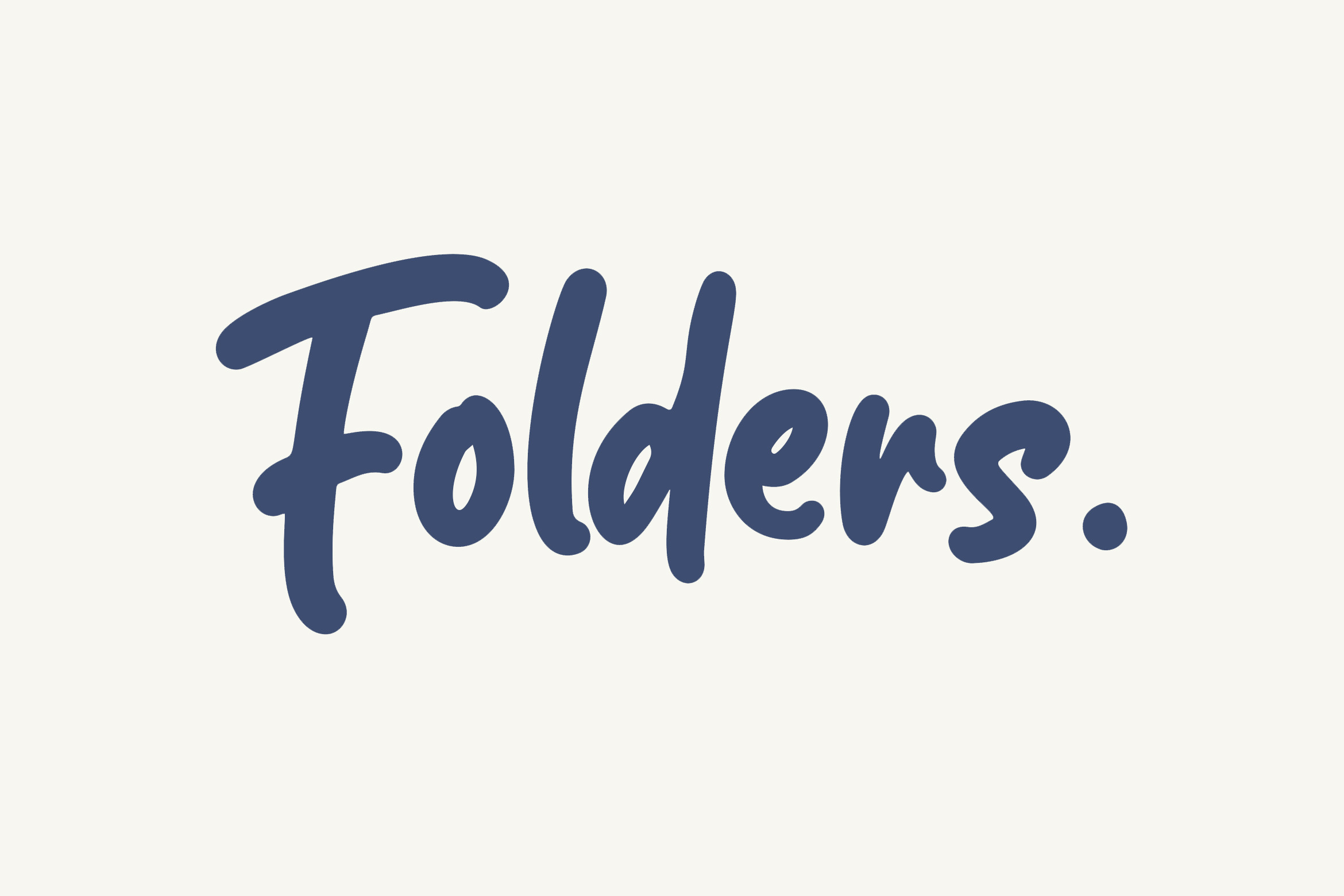
Folders Font
Introducing Folders - Handdrawn Font, a new font with the style of the fun hand-drawn. Which is you can create a cute and fresh design. Folders is very suitable for logo design, kids t-shirts, birthday cards, cover books, magazines, flyers, quotes, packaging and of course much more.
This font comes in uppercase, lowercase, punctuations, symbols & numerals, ligatures, and multilingual support.